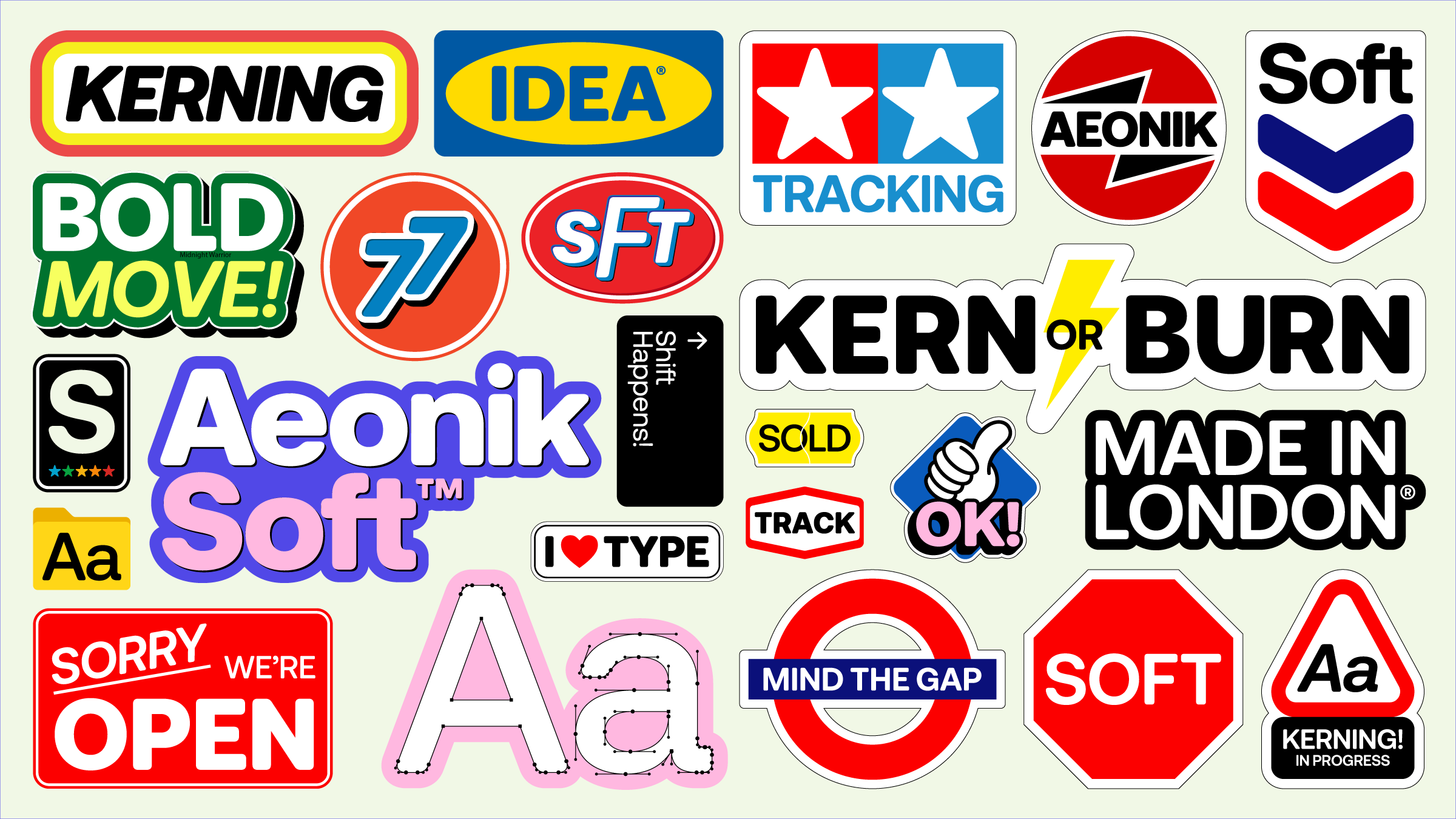
Aeonik Soft brings a gentler voice to the Aeonik Superfamily. While the original Aeonik is known for its clarity and geometric precision, Aeonik Soft softens those edges to create a more approachable tone without losing structure. The result is a typeface that feels friendlier, expressive, and adaptable to a wider range of voices.
This isn’t a rounded typeface in the traditional sense. Aeonik Soft retains the mechanical backbone and neo-grotesque logic of its parent, but introduces subtly curved corners that add warmth, playfulness, and a surprising versatility. It’s particularly suited to editorial work, identity systems, packaging, and even children’s content, anywhere Aeonik’s modern functionality benefits from a softer touch.
Available in eight weights from Air to Black, each with matching italics, Aeonik Soft also includes a variable font, allowing designers precise control over weight and style. It supports Latin, Vietnamese, Cyrillic, and Greek character sets, with selectable language support at checkout.
Aeonik Soft is fully equipped with OpenType features including discretionary ligatures, old-style and tabular numerals, fractions, case-sensitive punctuation, symbols, geometric shapes, circled numerals, and arrows. Stylistic sets across Latin, Greek, and Cyrillic offer alternate designs for key characters such as ‘a,’ ‘t,’ and ‘j,’ making it easy to adapt the tone to any project.
As with all members of the Aeonik family, Aeonik Soft is built to perform across sizes and media. Its rounded structure brings balance to branding, warmth to UI, and a relaxed confidence to running text.